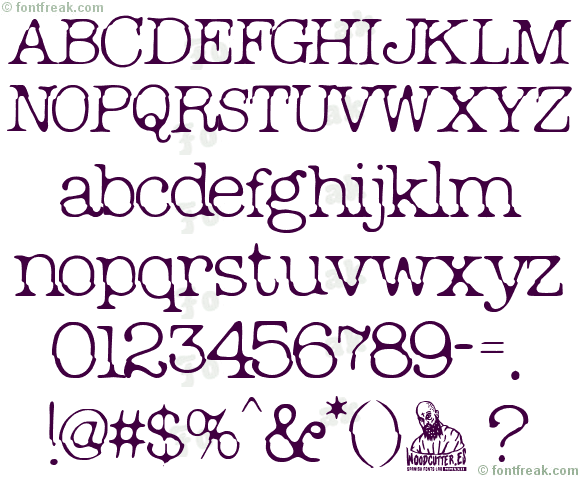
Break Office
The Break Office font by woodcutter Manero is a distinctive display typeface characterized by its playful yet sophisticated design. This font falls into the decorative category, making it perfect for projects that require a unique visual flair. With its medium stroke weight and moderate contrast, Break Office balances readability with artistic expression. The unique letterforms feature subtle curves and whimsical flourishes that add an engaging quality to any text, while the well-spaced characters ensure clarity and ease of reading.
This font shines in a variety of creative contexts. It is particularly well-suited for restaurant menus, where its playful nature can enhance the dining experience, making dishes feel more inviting. Break Office also excels in wedding invitations, offering a charming and personalized touch that reflects the couple's unique style. Additionally, it works wonderfully for movie posters, drawing attention and adding character to film titles. Graphic designers will appreciate its versatility in branding projects, allowing for eye-catching logos and promotional materials that stand out in a crowded marketplace. Content creators can also leverage this font for social media graphics, ensuring their posts are visually compelling and memorable.
Overall, Break Office stands out due to its ability to blend playfulness with sophistication, making it a fantastic choice for those seeking a font that can infuse personality and creativity into their projects. Whether for professional use or personal endeavors, this font is sure to leave a lasting impression.